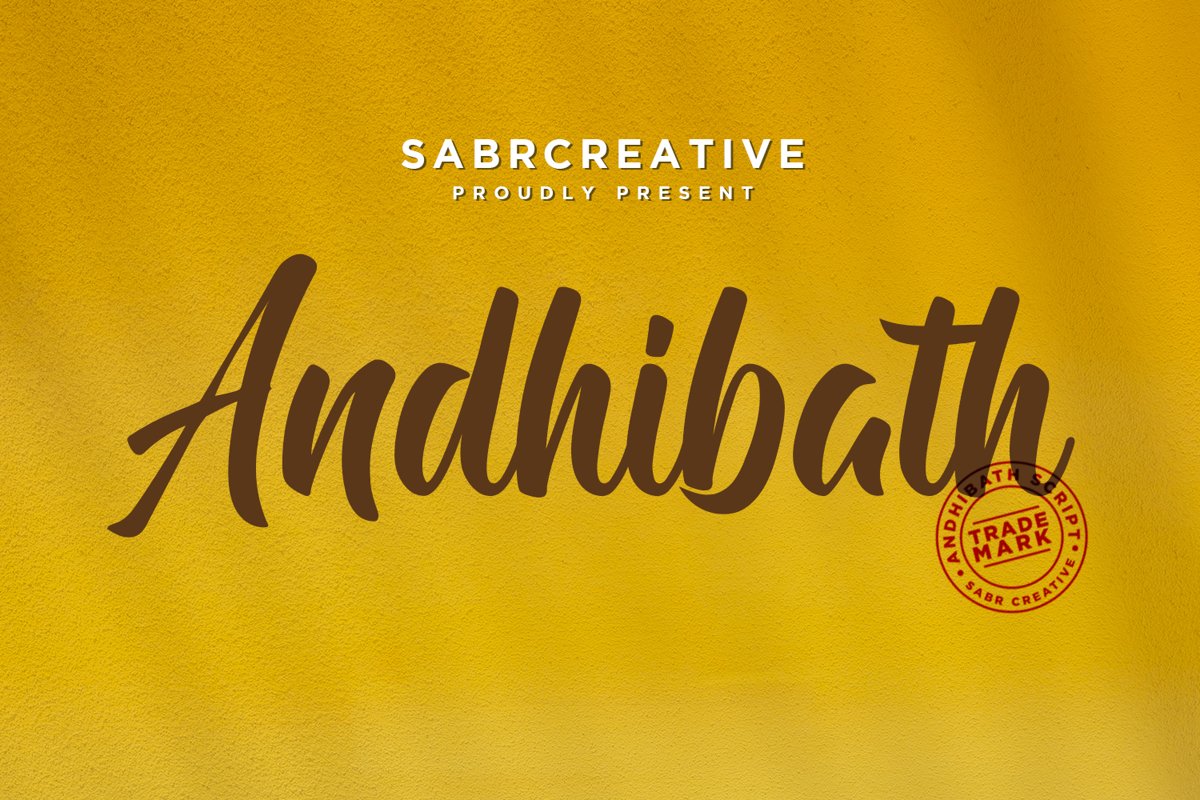
Andhibath
Introducing Font Andhibath, fonts with script styles with
natural and strong characters that are created using calligraphy brushes and
then trace them neatly until they get consistent results.
Andhibath font can be used for various types of needs of
your project to suit your needs.
With multilingual support, this font is also suitable to be
combined with various design styles from various countries.